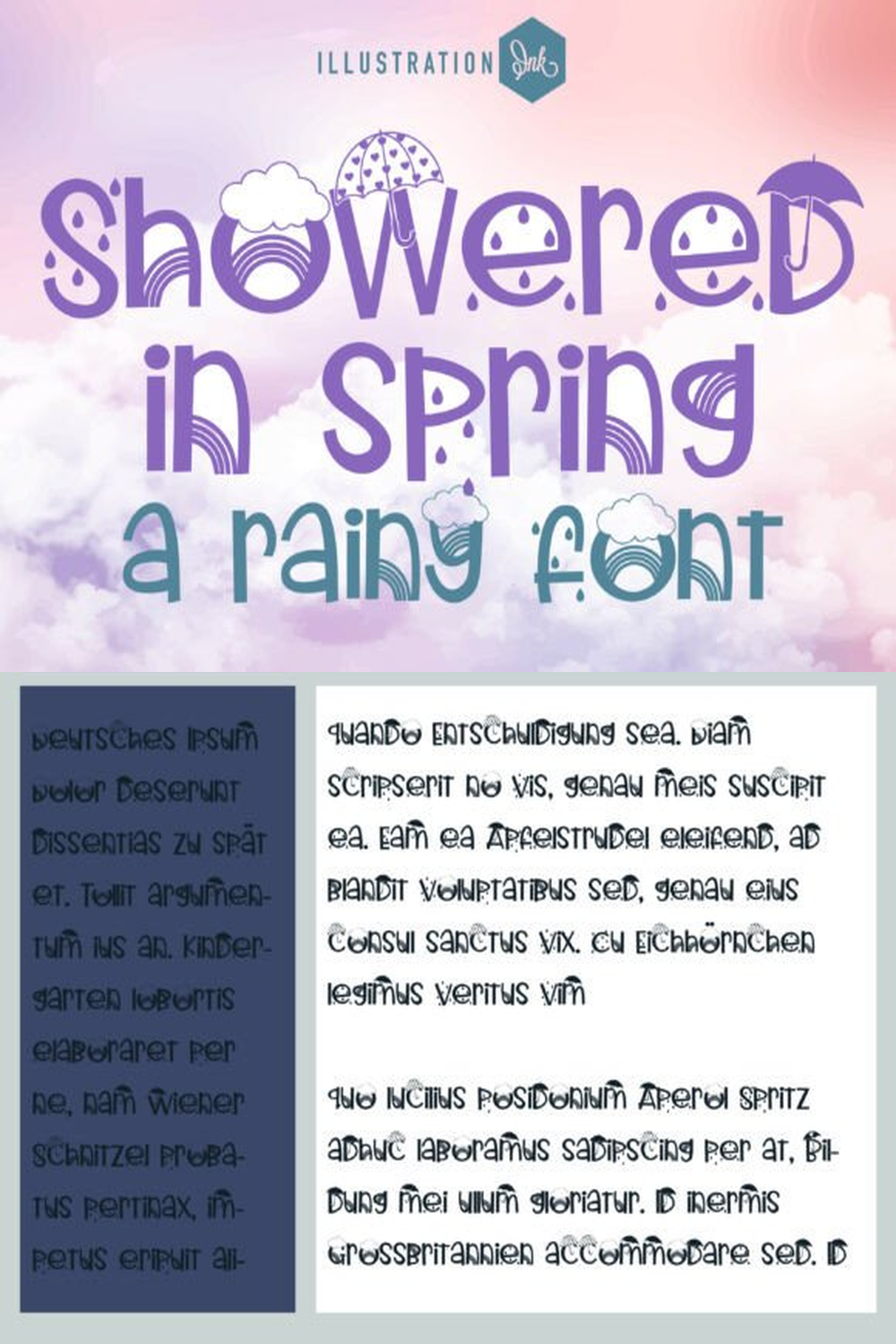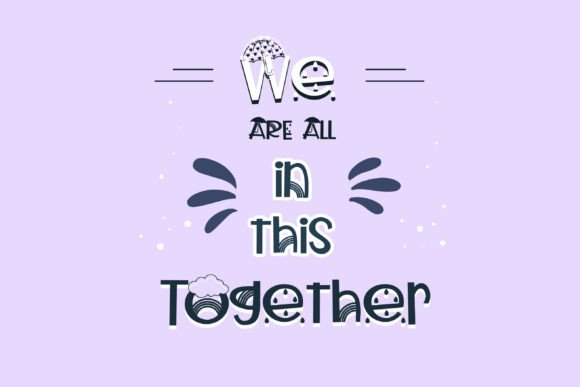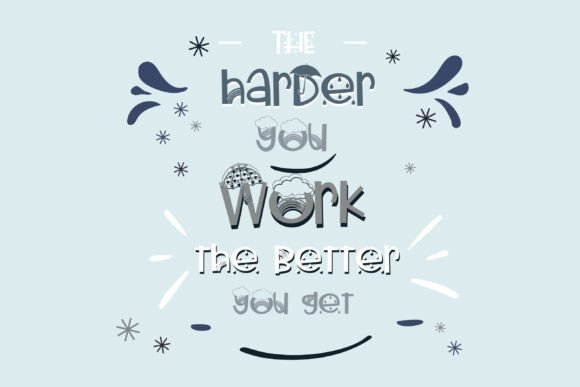
Showered in Spring Font
About the Showered in Spring Font
The wait is over! The incredible Showered in Spring Font is now available for your design toolkit. This hand-crafted font is a whimsical sans serif with a clouds, rain, rainbows, and umbrellas.
Showered in Spring Font Usage Examples